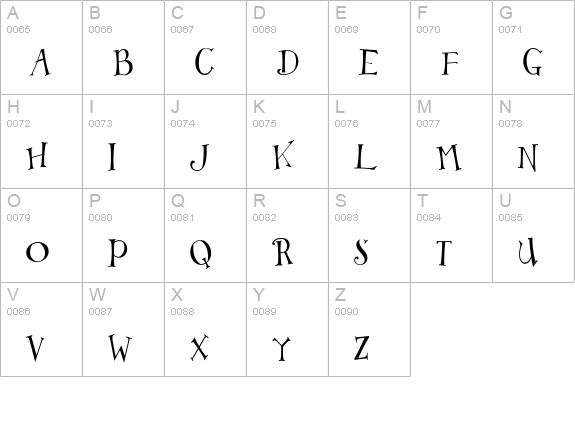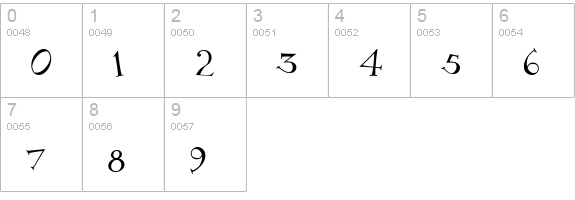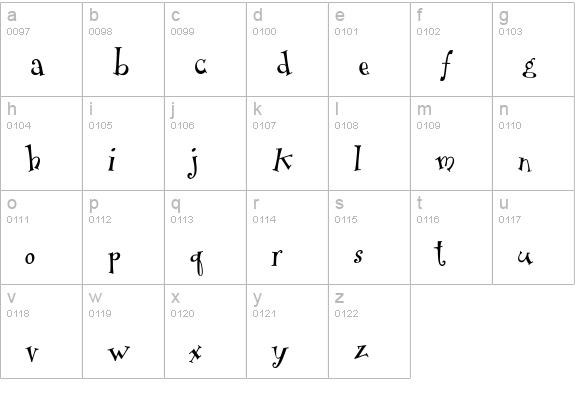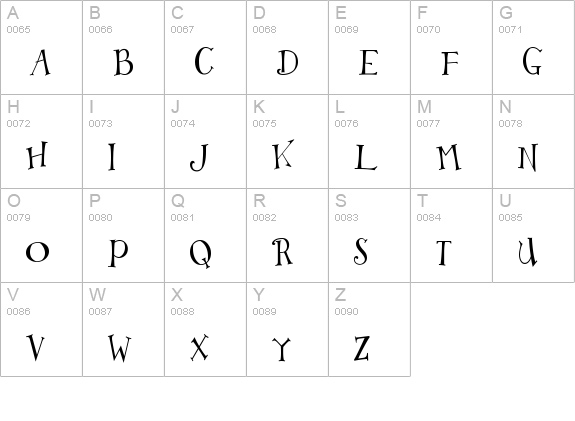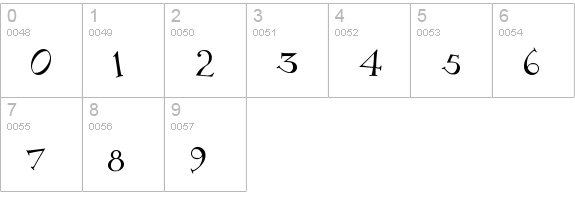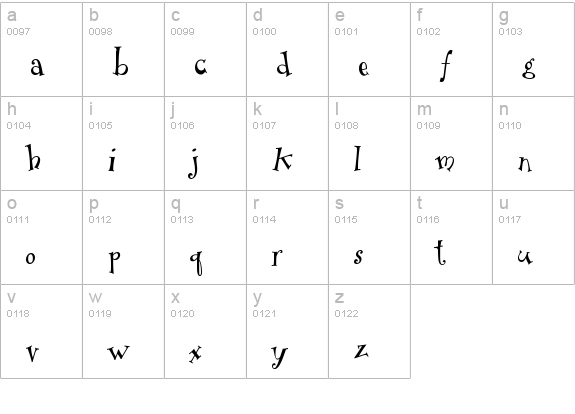
CK Fantasy Font Details
Introducing CK Fantasy font, a whimsical and enchanting typeface that will transport you to a magical realm of creativity and imagination. This unique font features delicate swirls and intricate details that bring a touch of fantasy to any project. Whether you're designing a fairy tale book cover, creating fantasy-themed invitations, or adding a mystical touch to your branding, CK Fantasy font is the perfect choice. What's even better is that CK Fantasy font is completely free to download at FontsMarket.com. Yes, you read that right - this stunning font is available for you to use in your personal and commercial projects without any cost. So go ahead, unleash your creativity and let CK Fantasy font add a touch of magic to your designs. Download it now and start creating enchanting visuals that will captivate your audience!